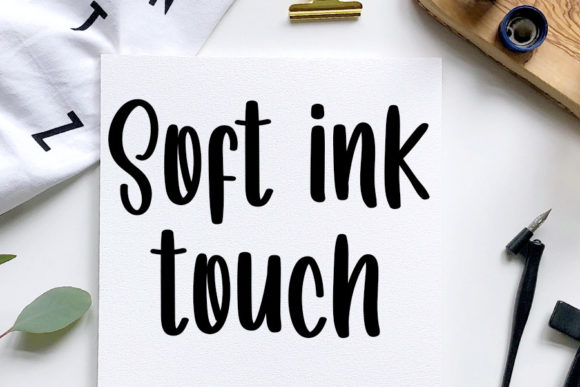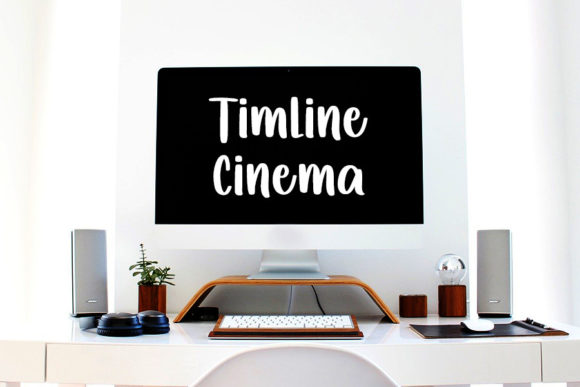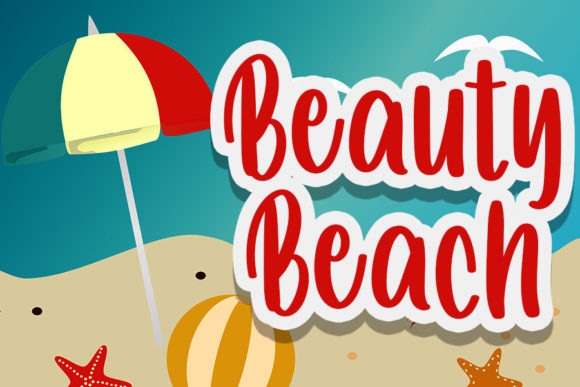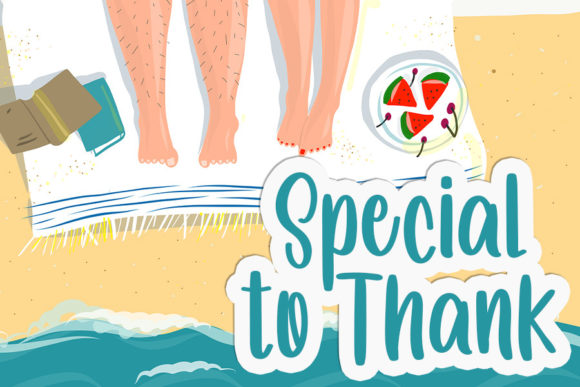
About Summer Avocado Font
Summer Avocado is a relaxed and friendly handwritten font. This font was particularly crafted for those who need a beautiful and refreshing look to their designs.